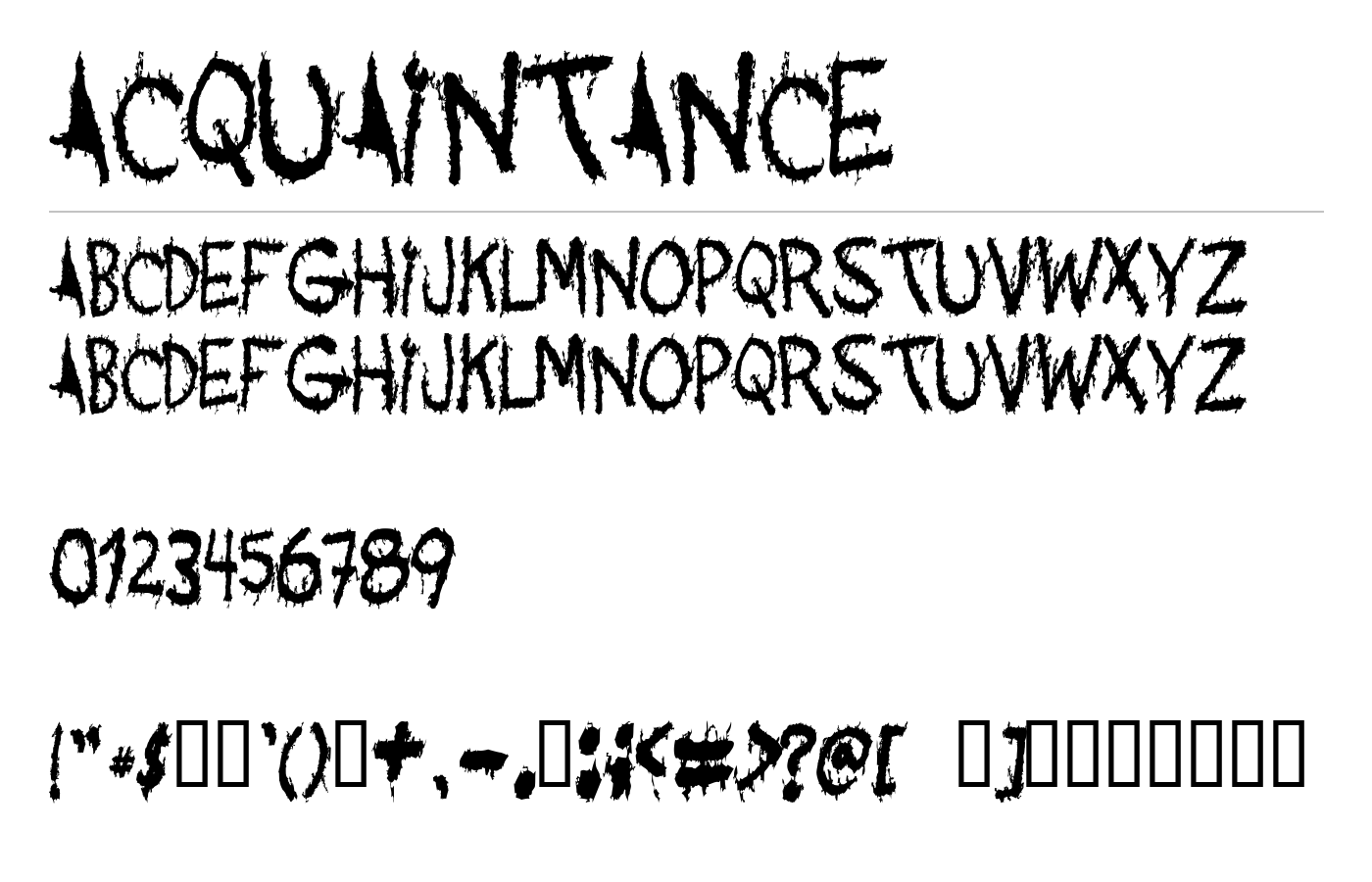
Acquaintance is a bold, distressed sans serif font with a rough, hand-drawn texture that creates a striking, edgy appearance. Its irregular strokes and high contrast give it a rebellious, gritty personality, making it ideal for projects like horror themes, urban art, or bold branding that demands attention and a raw, authentic vibe. This font works best in headlines and display uses where its unique style can stand out without sacrificing legibility.
Acquaintance Font
About Acquaintance Font